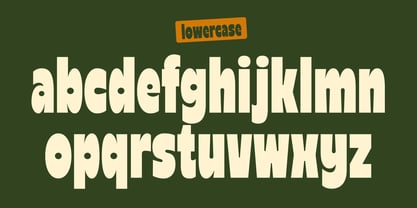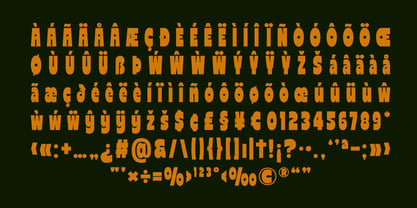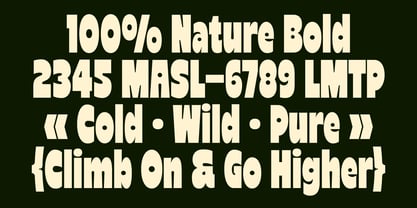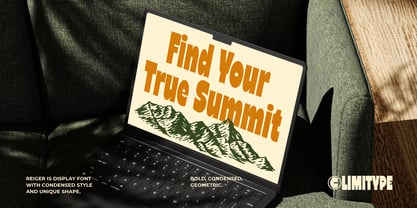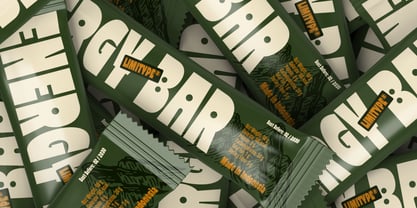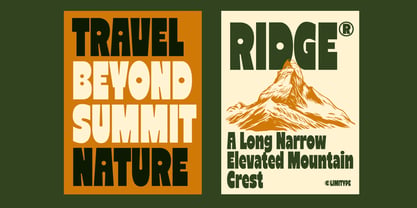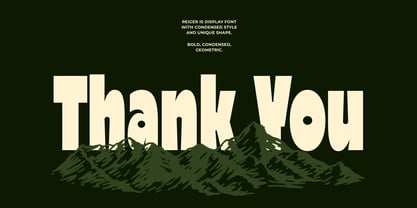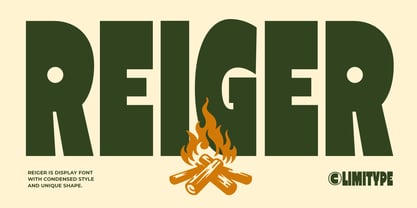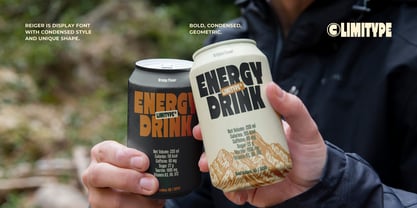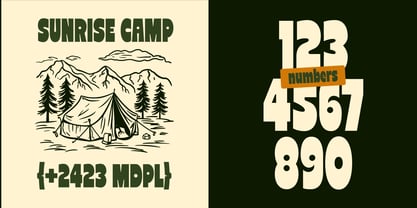
Reiger
La famille de polices Reiger a été conçue par Muhammad Muammar, Furqan Sudirman et publiée par limitype. Reiger contient 1 styles. En savoir plus sur cette famille
Reiger is a bold display typeface with a condensed structure and a strong, assertive character. Designed to deliver powerful visual impact while maintaining high readability, Reiger presents a modern and distinctive presence. Inspired by the spirit of adventure and the outdoors, this font is ideal for headlines, posters, logos, packaging, apparel, and branding projects that require a confident, impactful, and visually compelling appearance. Reiger available with: Uppercase Lowercase Number Symbol Multilingual